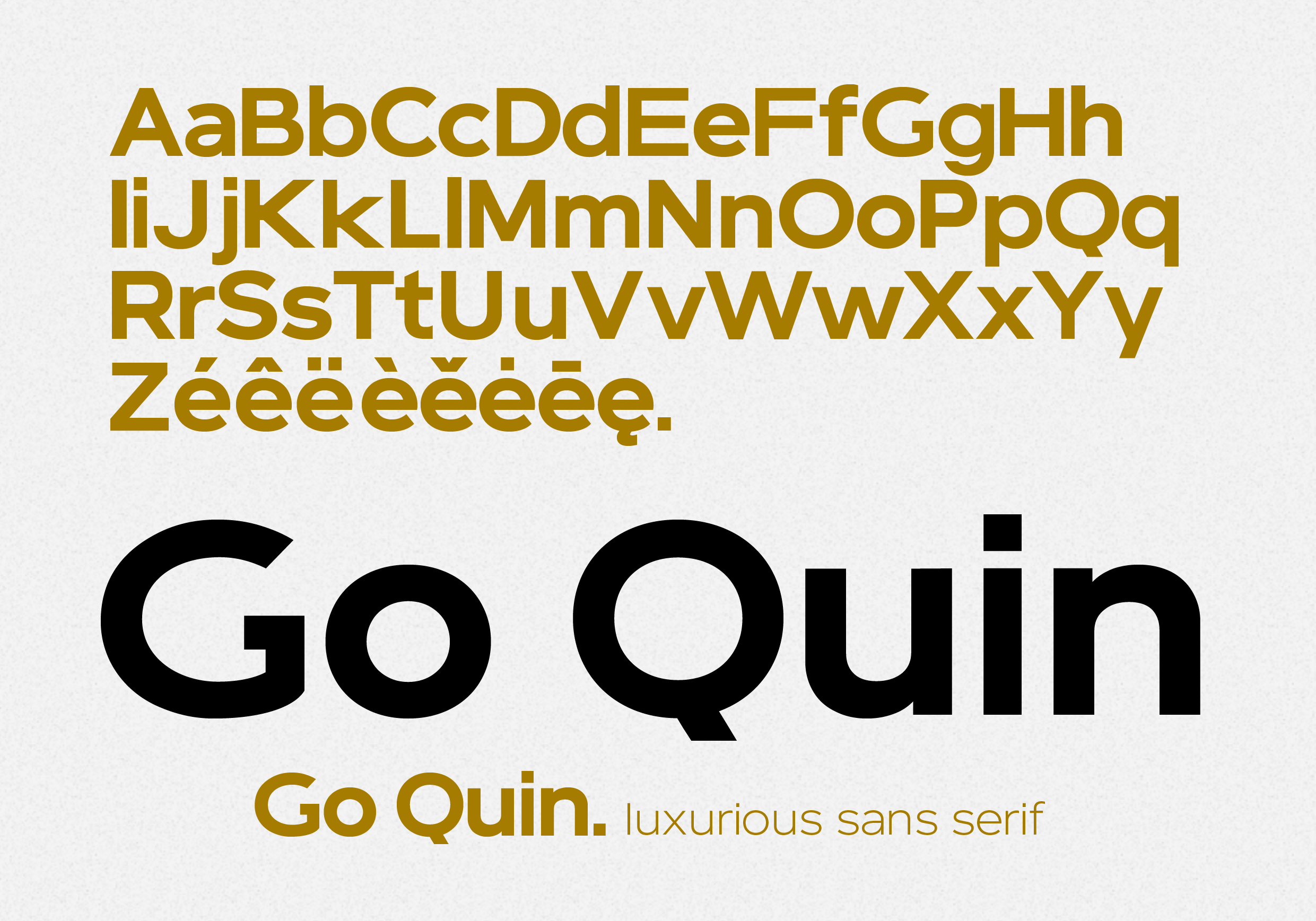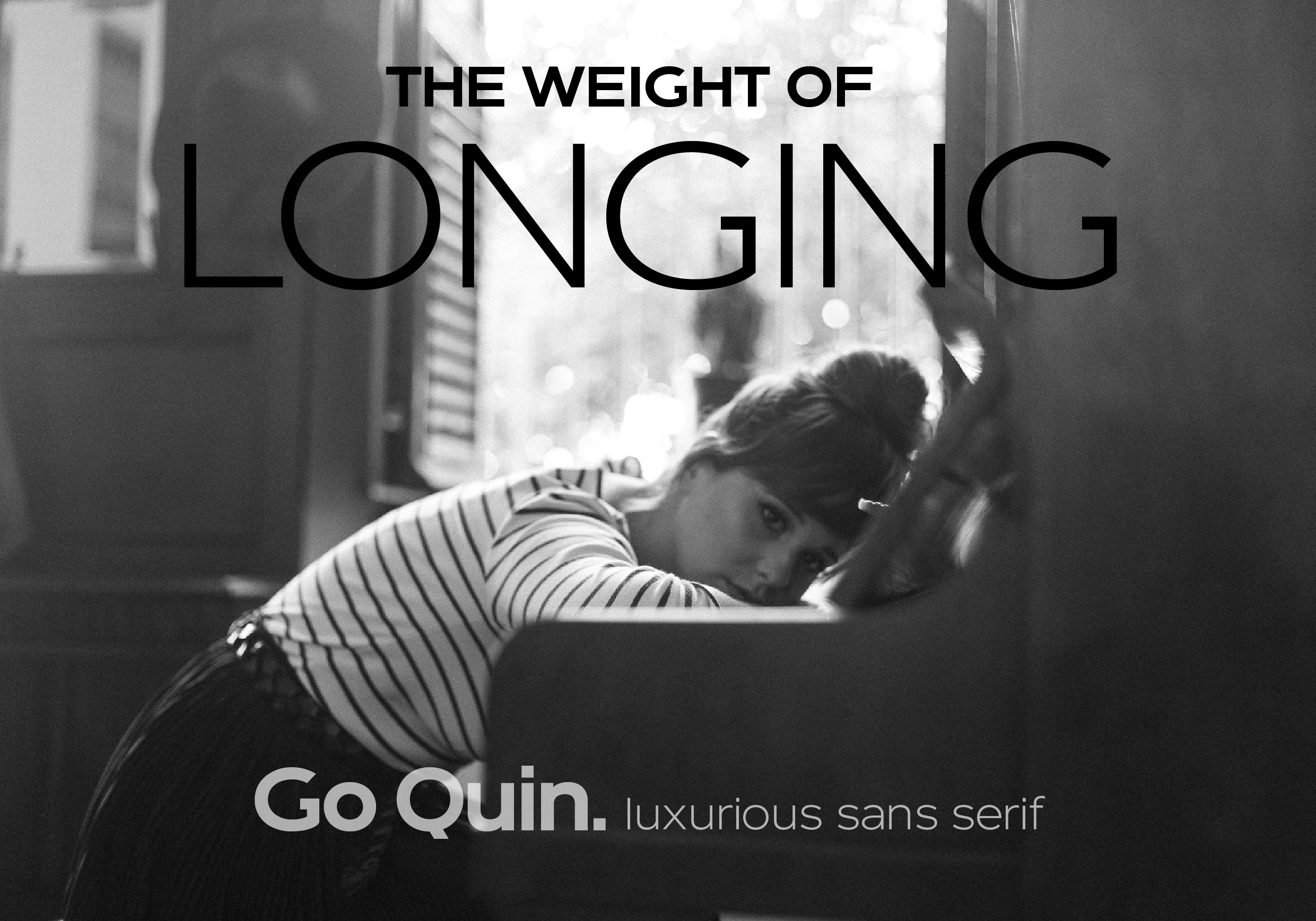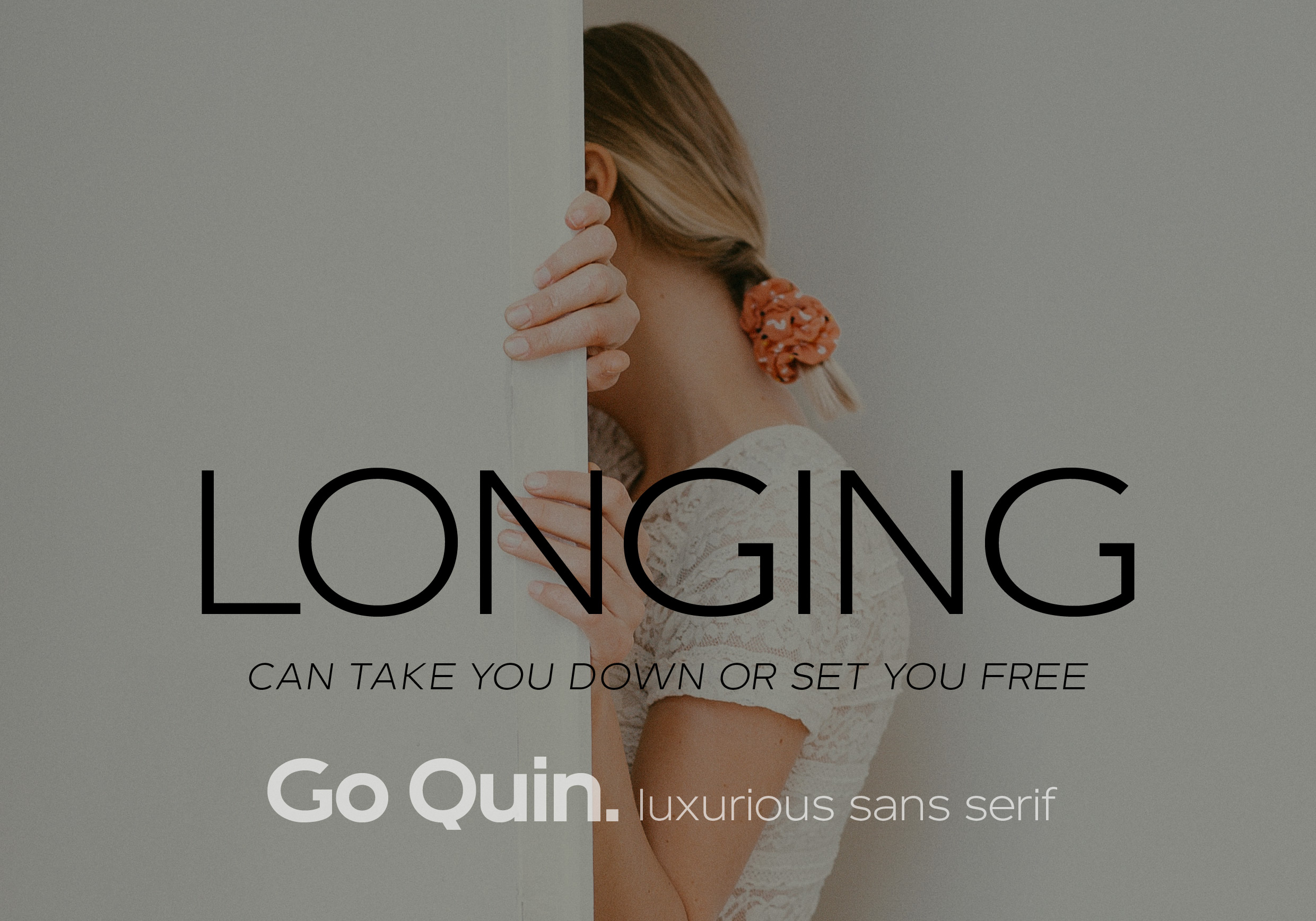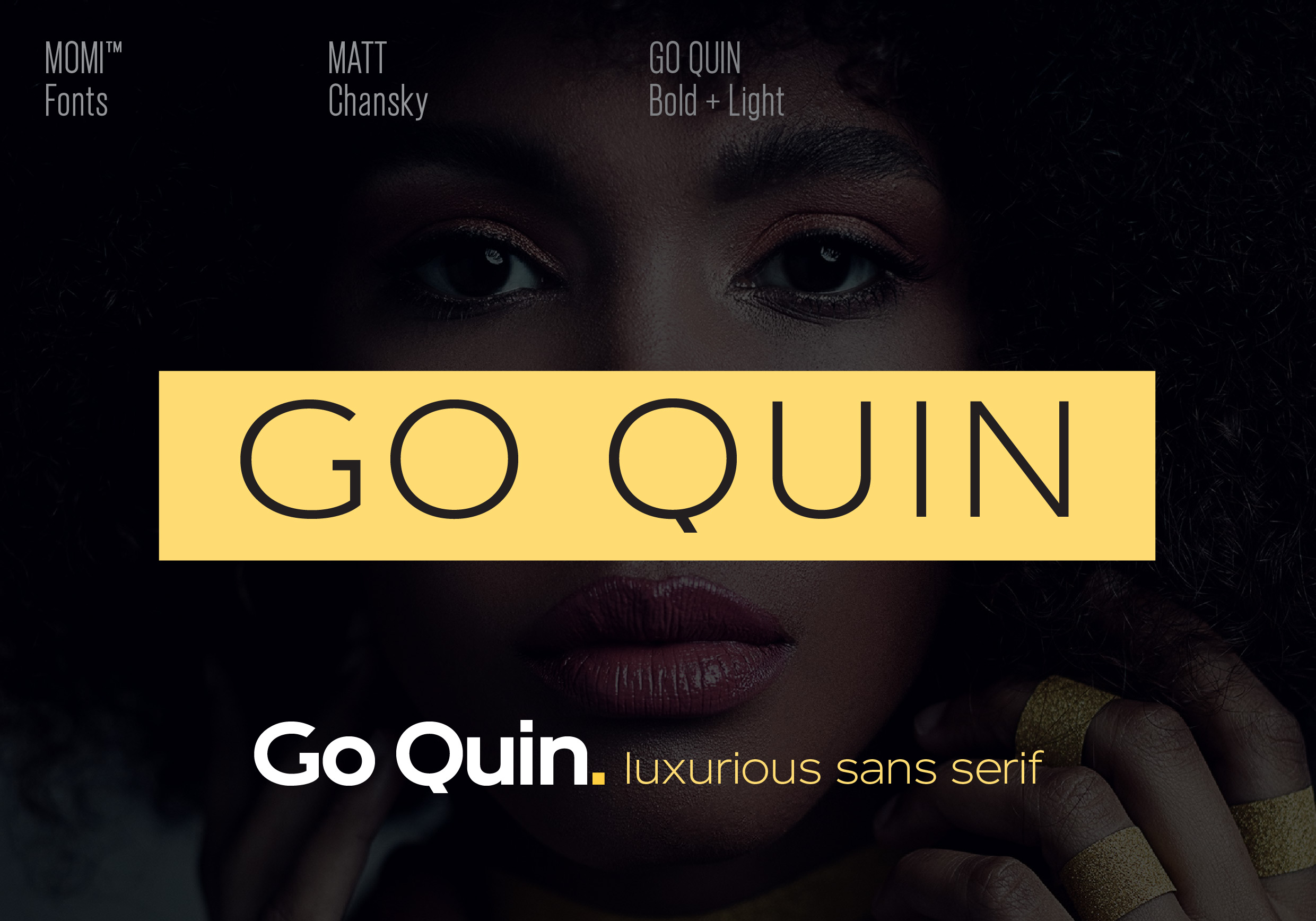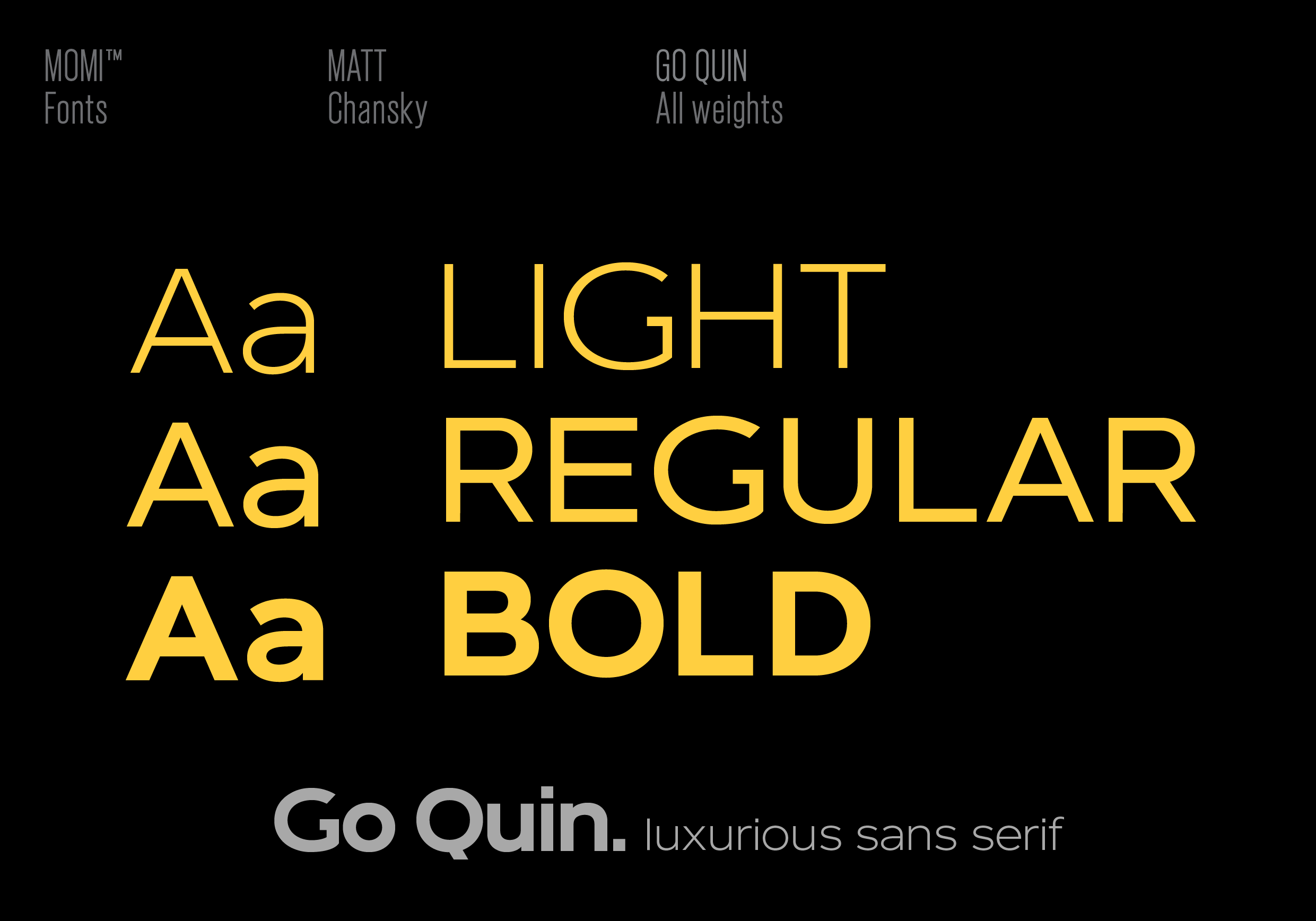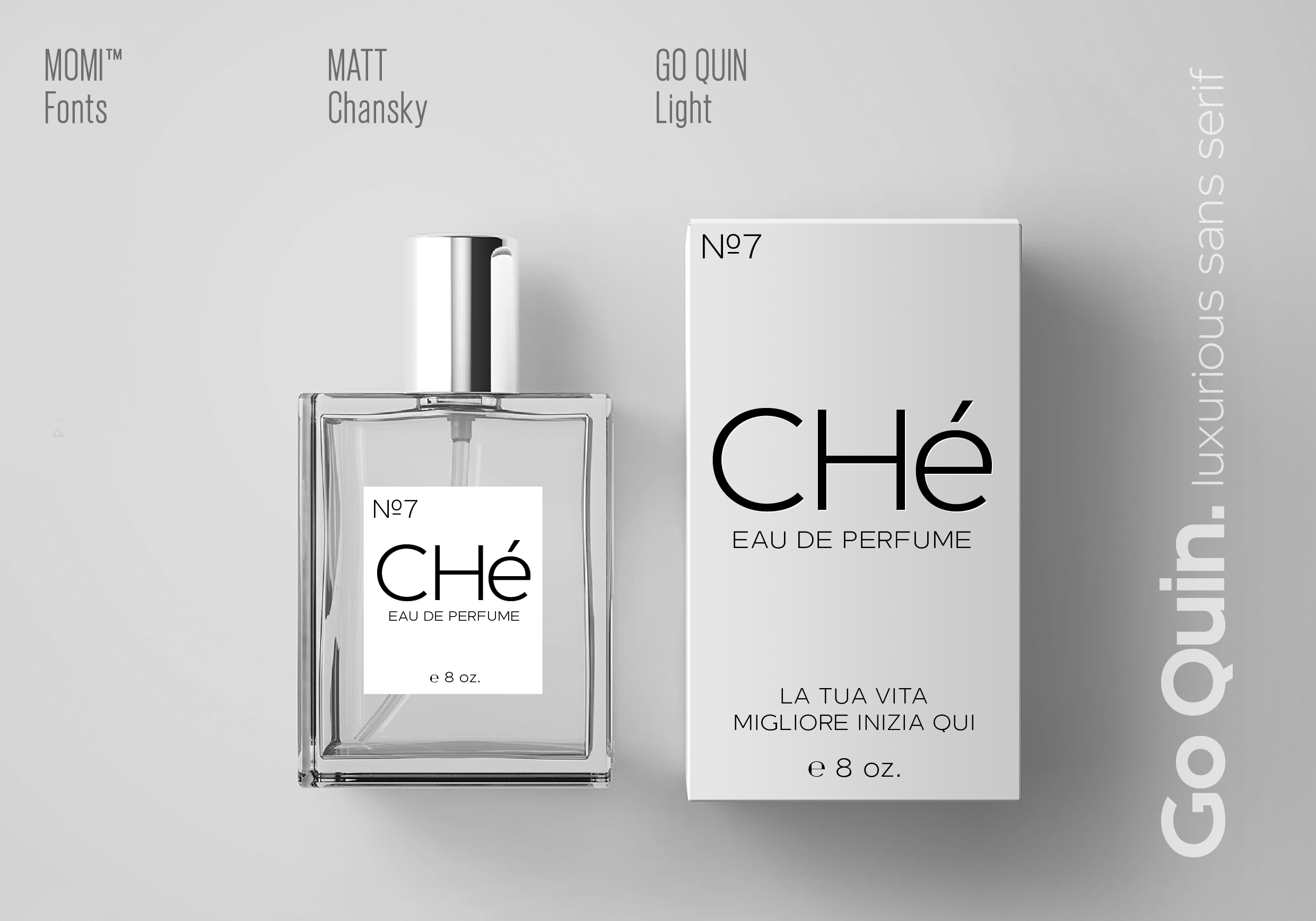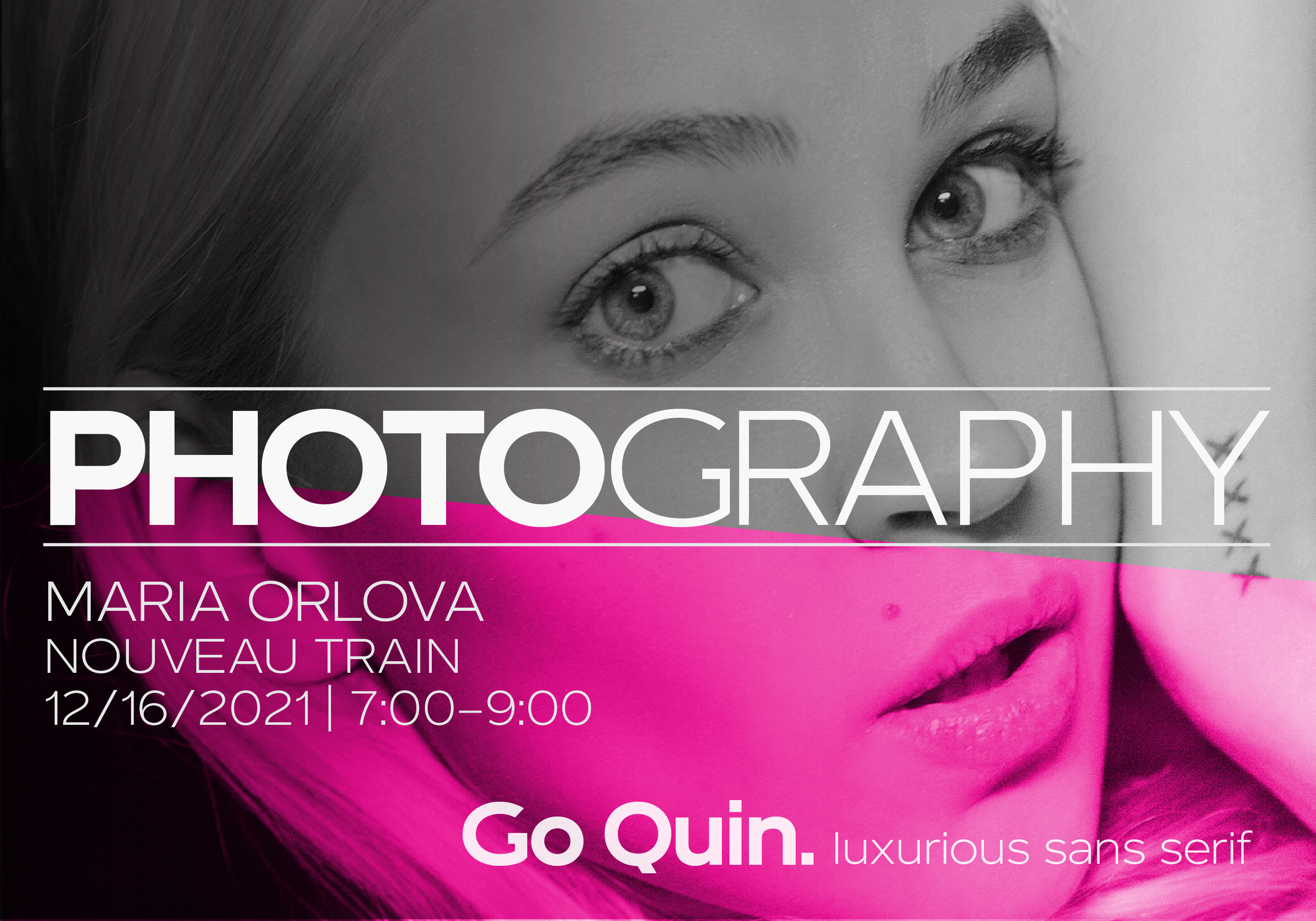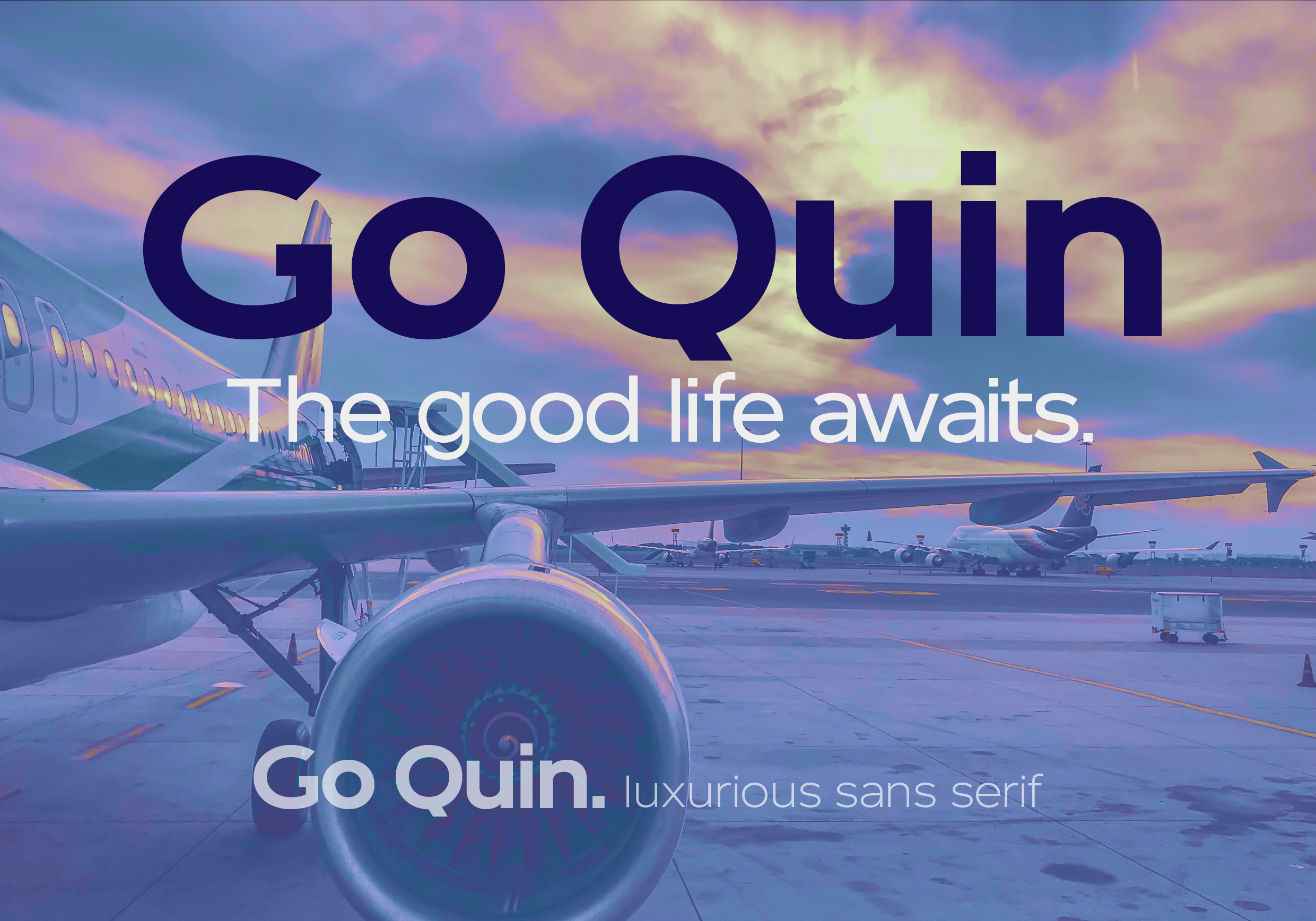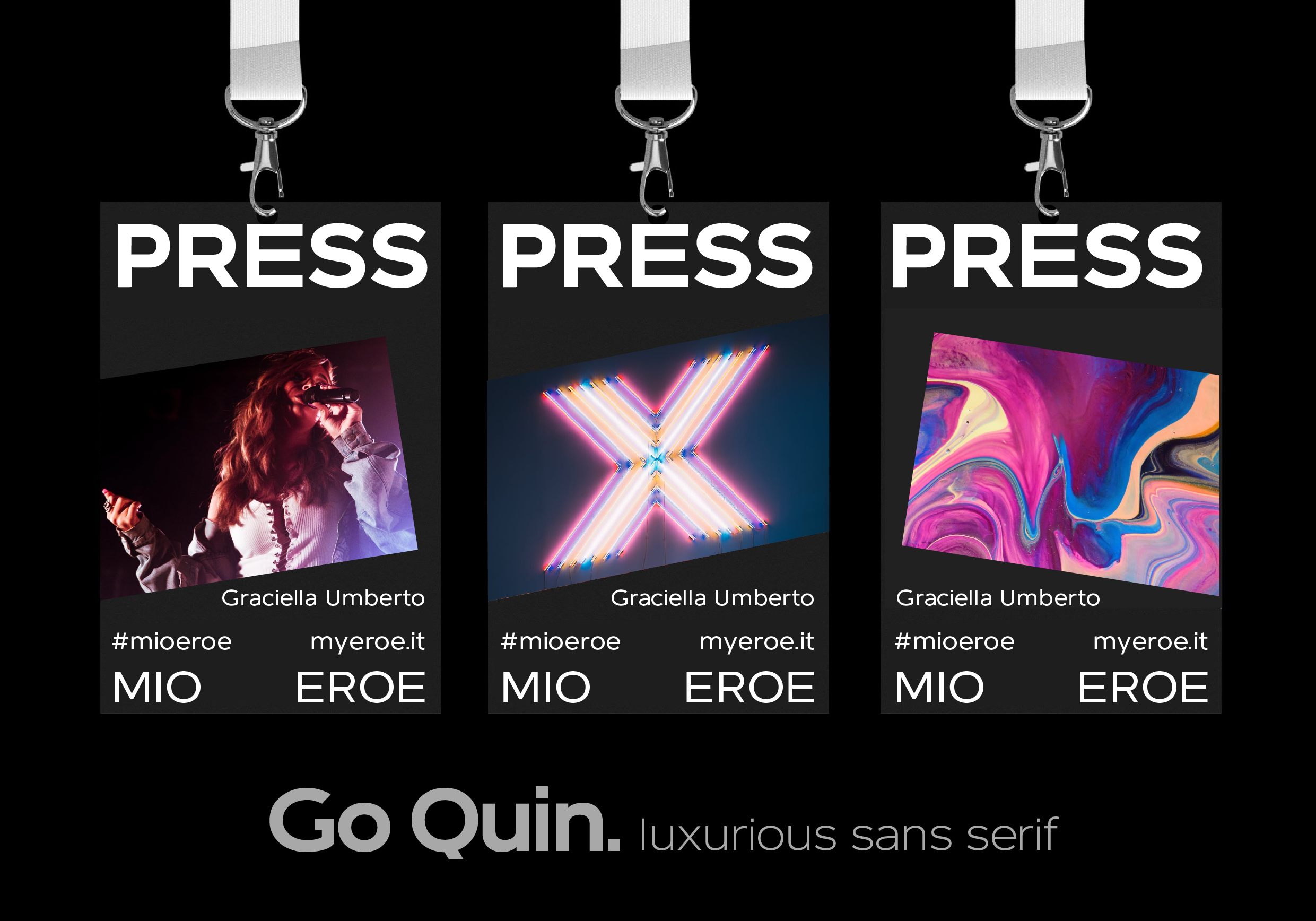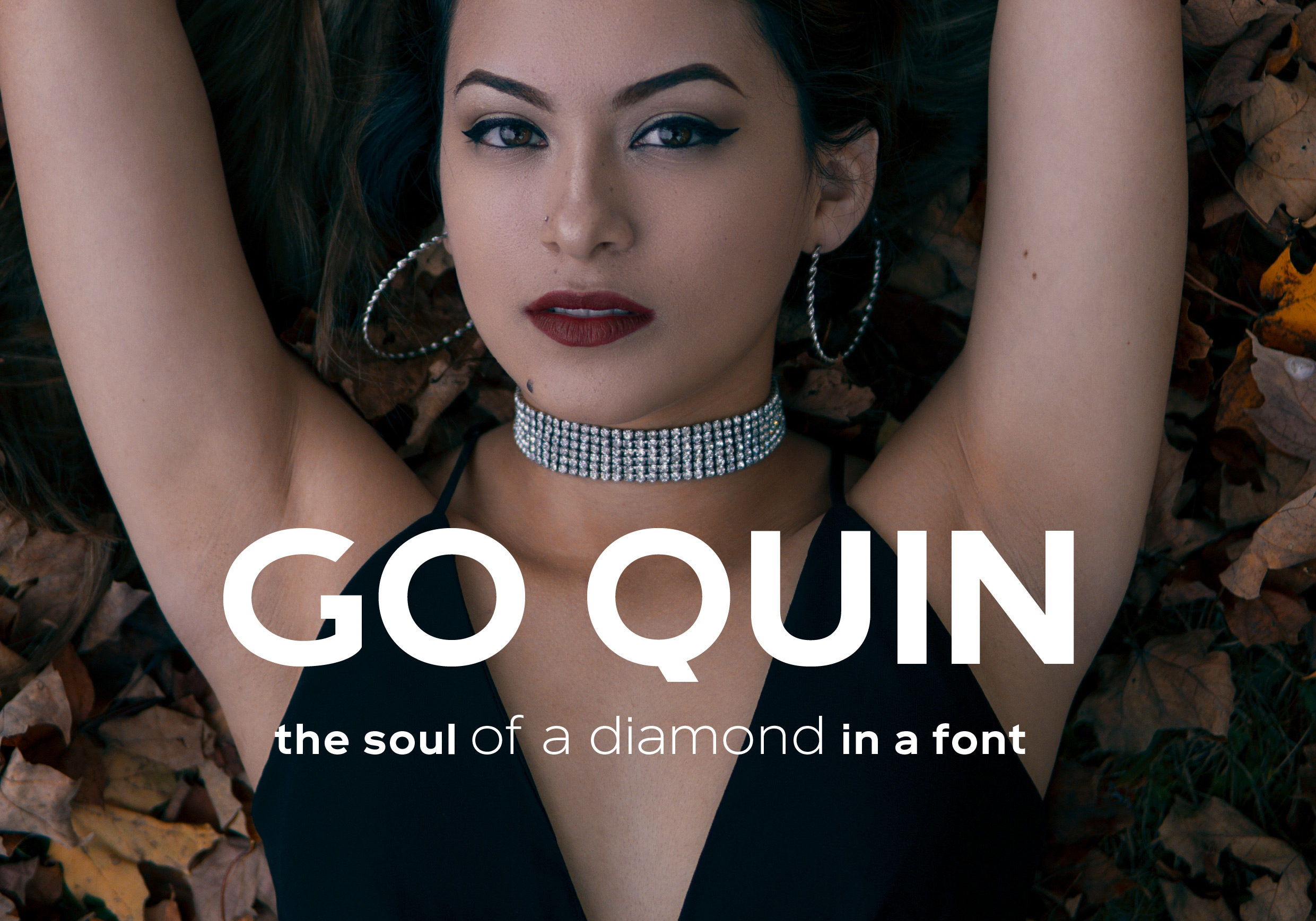
Go Quin
Revised March, 2022. Go Quin is an ultra modern luxurious sans serif – perfect for all of your high-end projects. Whenever you need instant class and credibility – Go Quin sans serif is there for you. With its high x-height, clean lines, and grace, you can take your layouts next-level with Go Quin. Foreign-language-friendly. OTF and TTF. Light, Regular, and Bold – plus slanted of each. Designed by Matt Chansky. What will you create with Go Quin?